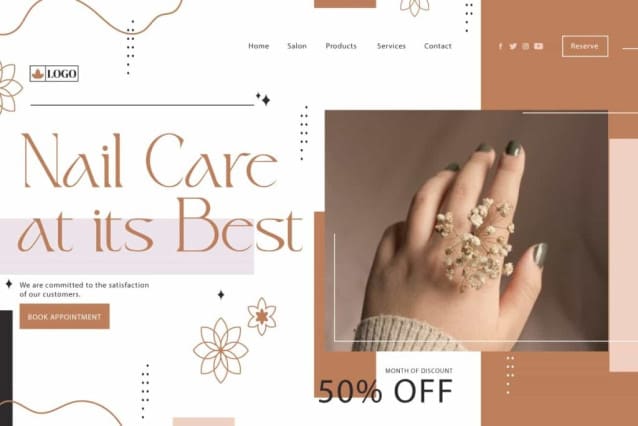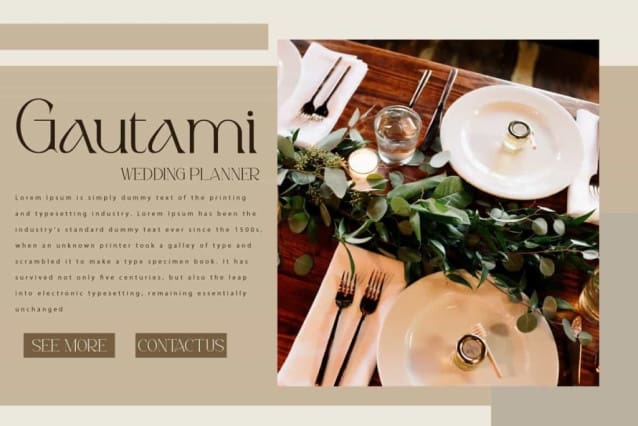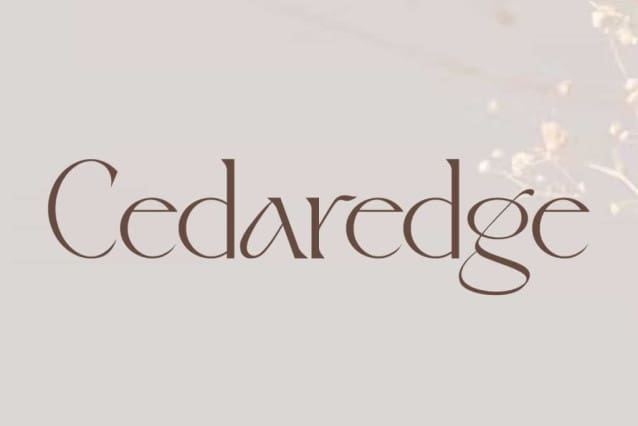
Cedaredge Font
Cedaredge Font is an elegant serif display font with unique fancy characters. This font has sleek characters with a unique shape to give a fancy looks. It will suits many designs, such as custom design, gift box, invitation, label, product packaging, quote, screen printing, signage, stationery, website, and more!
Cedaredge Font includes full set of Uppercase and Lowercase Basic Characters, Numerals, Punctuation, and Symbol. This font is perfect for you who looking for luxury font, so it will be suitable for many industries, such as accessories and jewelry, advertising, beauty product, event or wedding organizer, fashion, florist, furniture, perfume, resort, restaurant, etc.